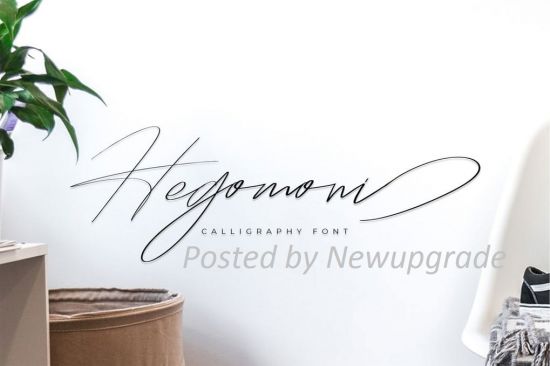
We introduce our new product called Hegomoni Signature
Hegomoni Signature is a signature font that you can use to make a design. This is perfect for BRANDING,funny logos with this font and poster headline, magazines, book titles, business cards, beautiful fashion designs, advertisements, product designs, wedding invitation, signature or handwritten quote.